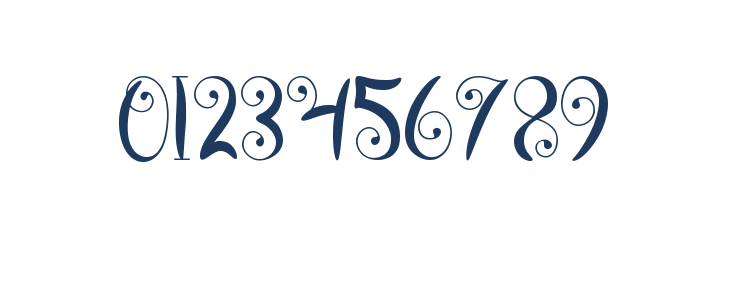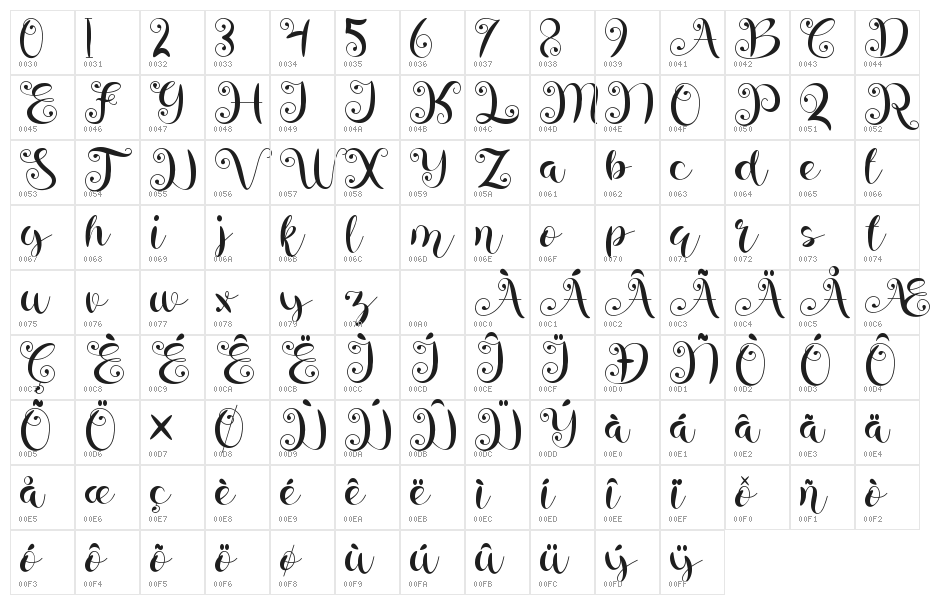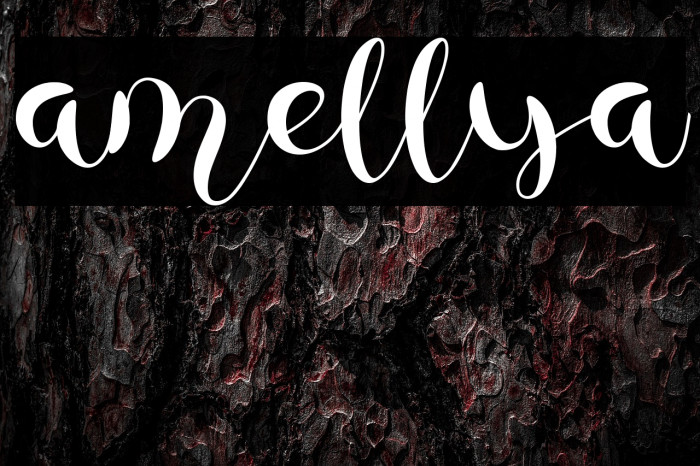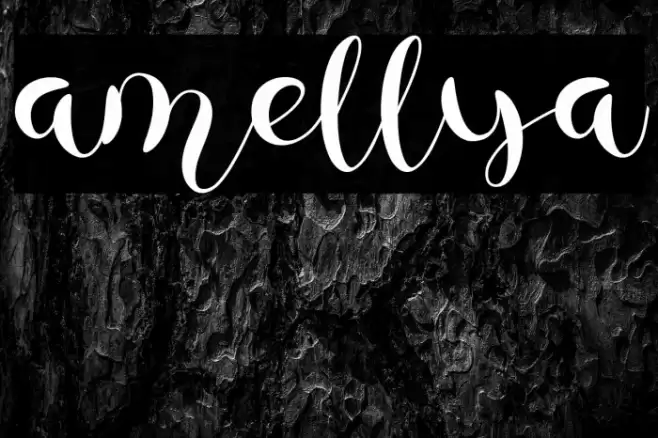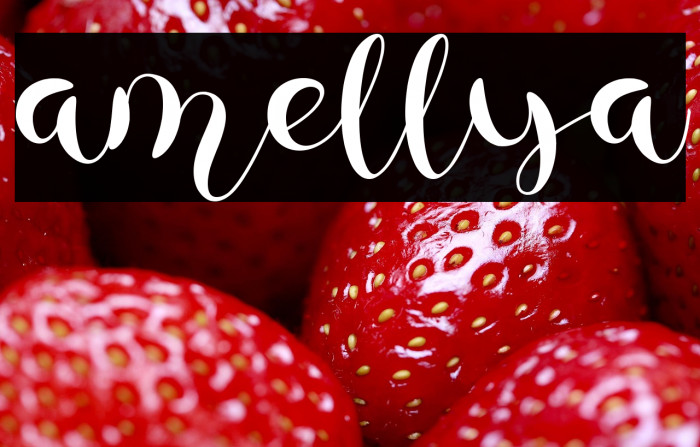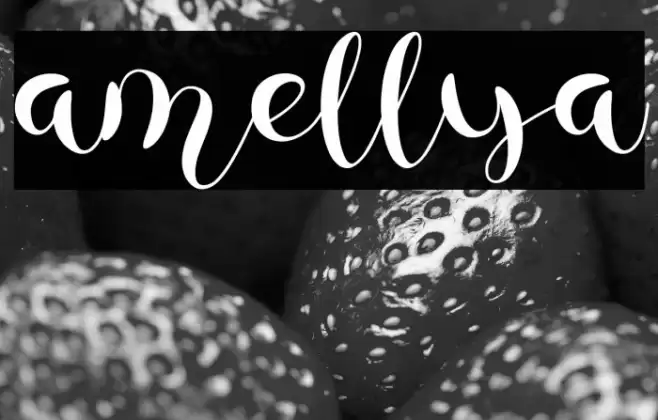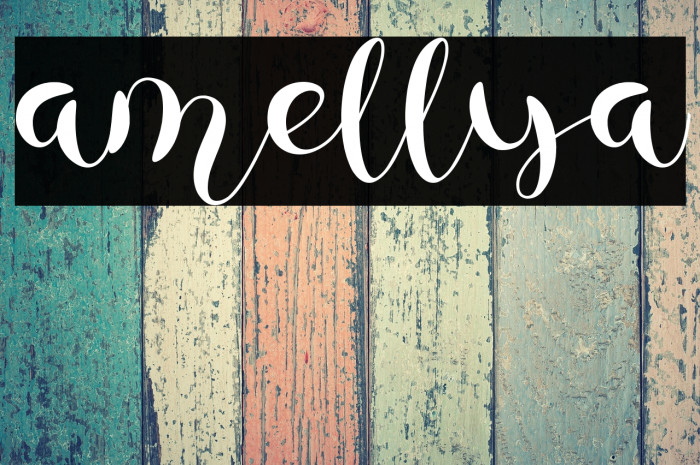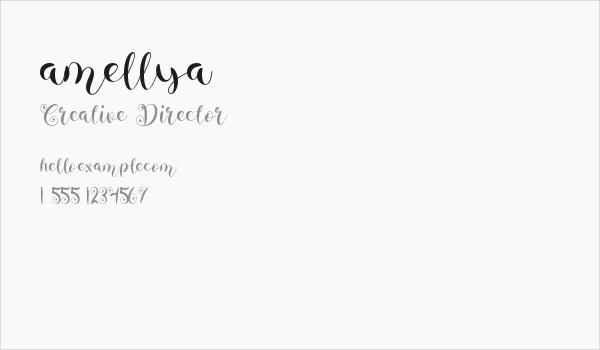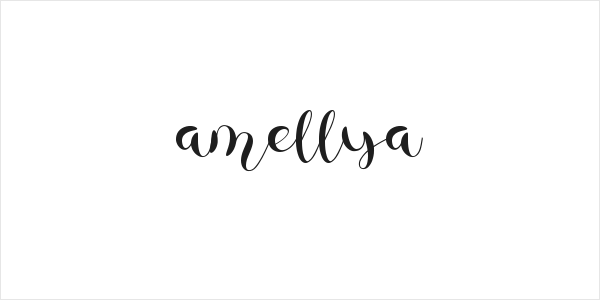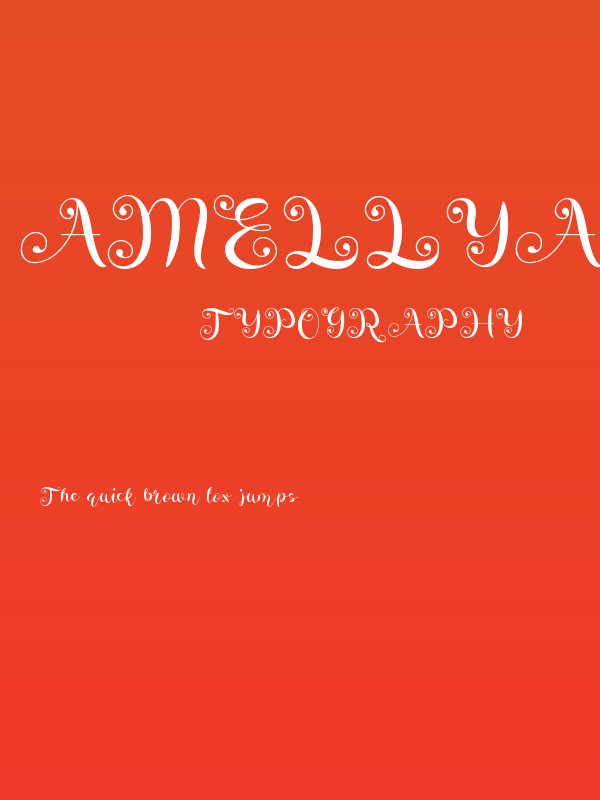
amellya Font
amellya Description
This font features an elegant and whimsical design with intricate swirls and curls that add a playful yet sophisticated touch. The uppercase letters are adorned with decorative flourishes, making them stand out with a unique flair. The lowercase letters maintain a smooth, flowing script style, offering a harmonious balance between the ornate uppercase and the more subdued lowercase. The numerals are equally decorative, with some digits incorporating the same swirling elements found in the letters. This font is perfect for projects that require a touch of elegance and creativity, such as invitations, greeting cards, and artistic branding.
| Use Case | Headlines, Logos, Artistic projects |
| Proposed Projects | Ideal for wedding invitations, greeting cards, artistic branding, and decorative posters. |